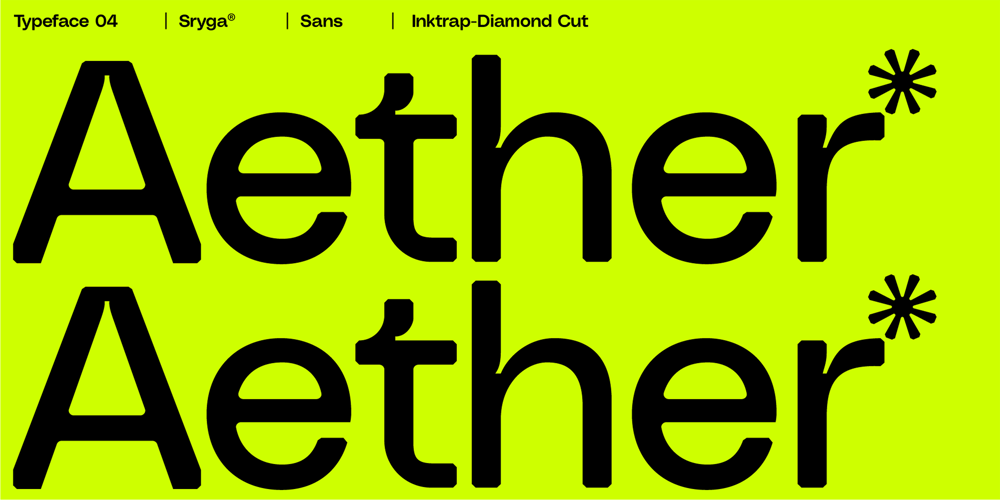
Aether
Aether Font Family was designed by Pande Sujana and published by Sryga. Aether contains 4 styles and family package options. I’m thrilled to introduce Aether, a seriously cool typeface. Picture this: a sans grotesk vibe with some artsy inktraps and a dash of diamond-cut feature on certain letters. It’s like mixing timeless human warmth with a touch of edgy-modern style. Perfect for adding that extra oomph to anything you’re creating. Give Aether a spin and let your creativity run wild!